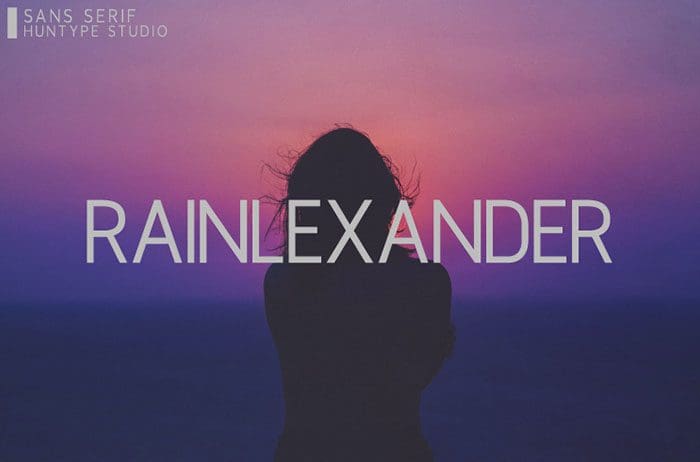
Rainlexander Sans Serif Font
Rainlexander is a great sans serif font that looks modern and sophisticated. This enchanting font will turn any creative idea into a true standout. Thanks to Mas Anis for sharing this font! Take a look at this portfolio for more of his stunning fonts.